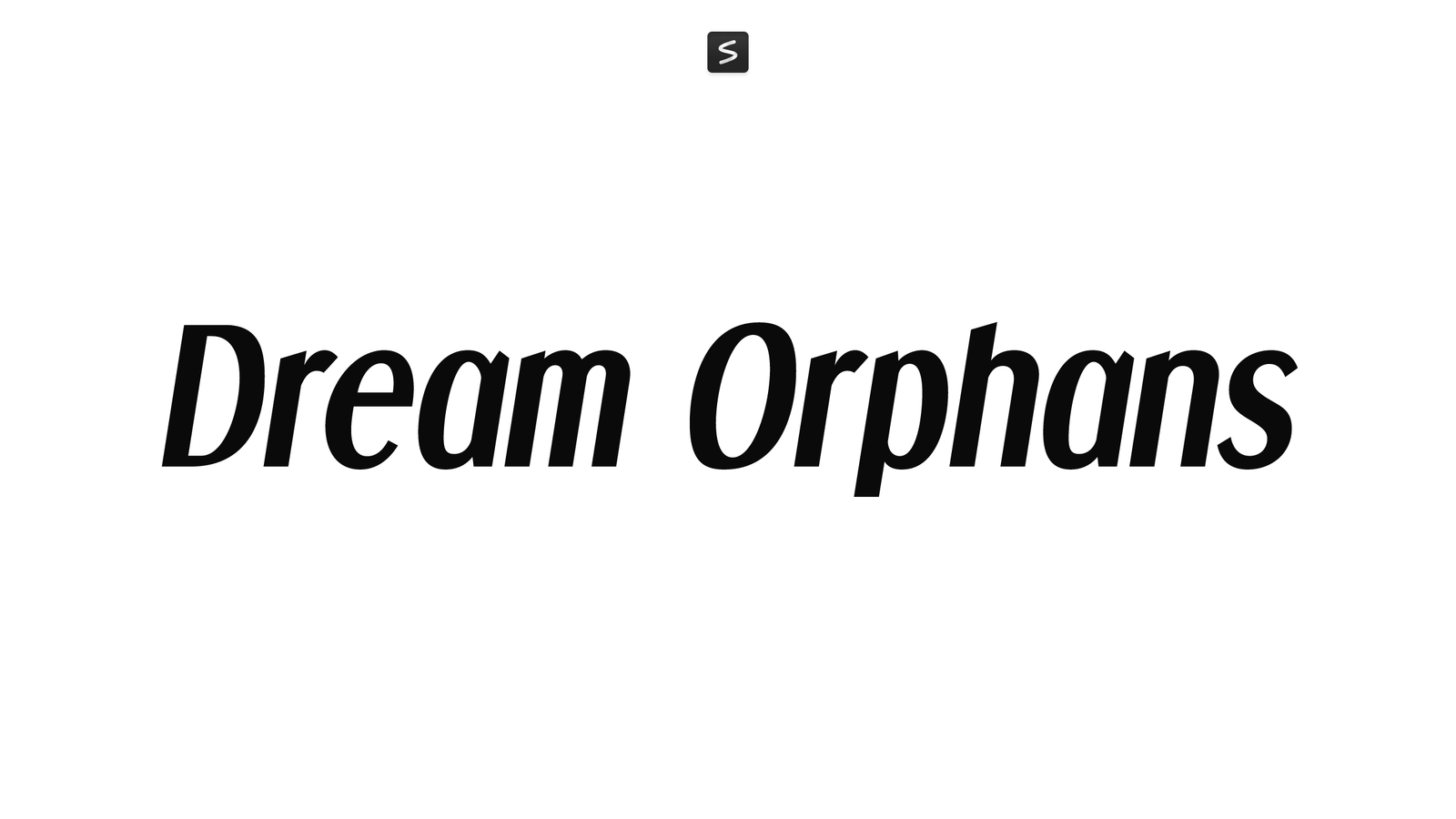
Dream Orphans is a headline typeface from Typodermic Fonts with a straightforward, homey character. Its compact proportions and tight spacing make it practical for titles where space is scarce, without sacrificing readability or warmth.
The font includes useful typographic extras: OpenType fractions, numeric ordinals, primes, and a liter sign. These small details help it function well in technical or editorial contexts where precision matters. If you prefer a more refined version of the same design, Dream Orphanage offers a sister typeface with greater sophistication.
Dream Orphans works well for book covers, magazine headlines, packaging labels, posters, and any project where a friendly, efficient sans-serif makes sense. Its straightforward design and broad language support make it a practical choice for both English and international design work.